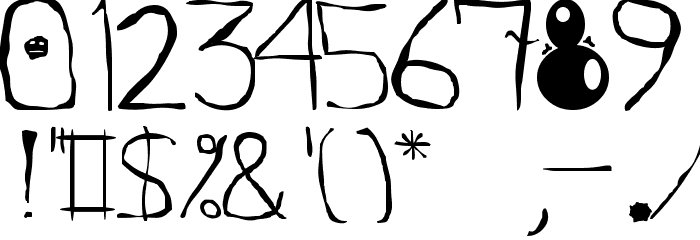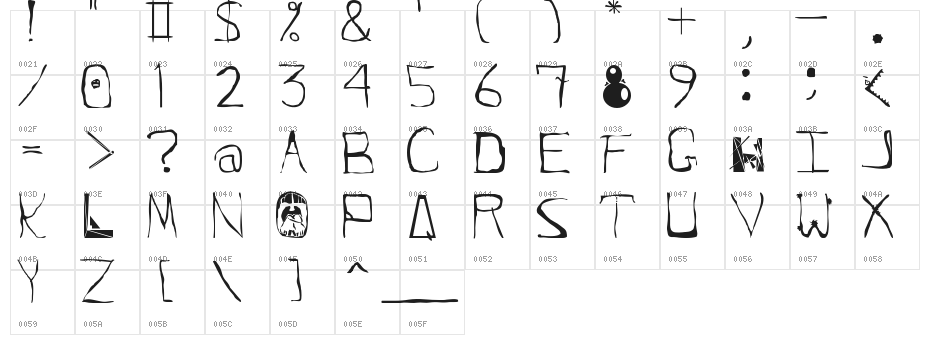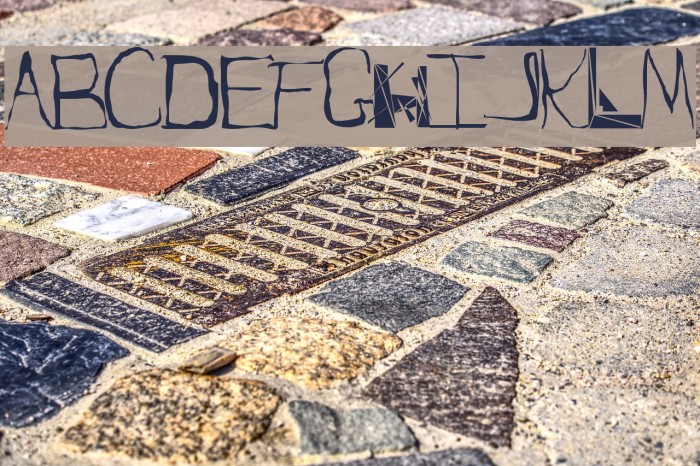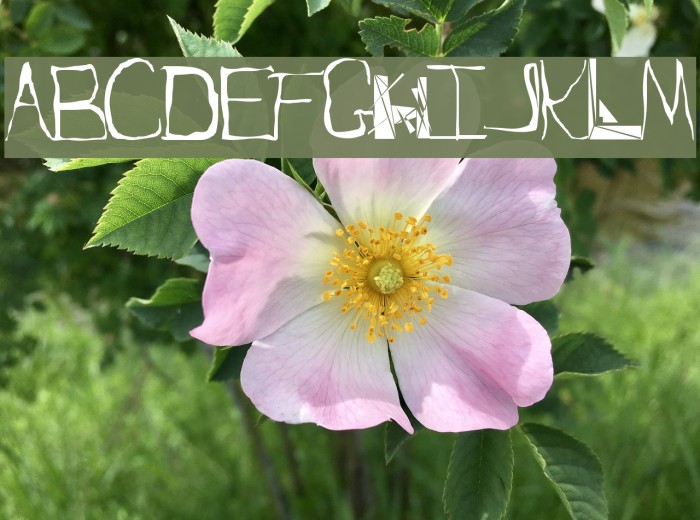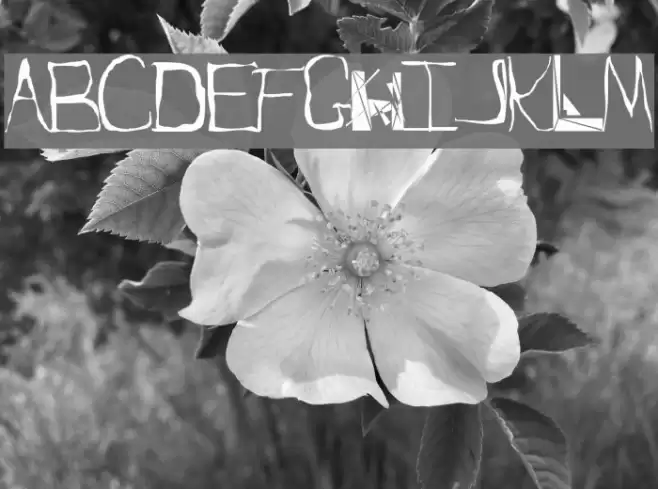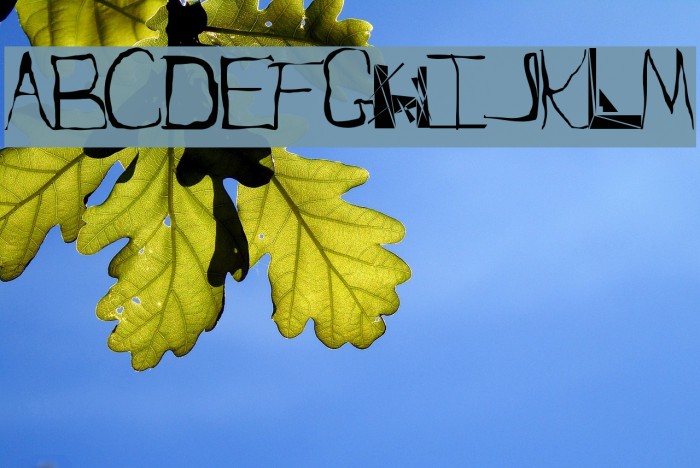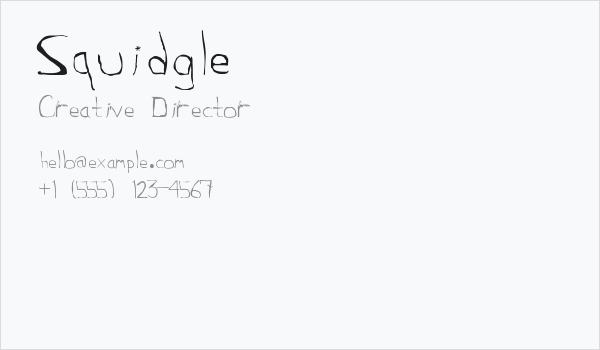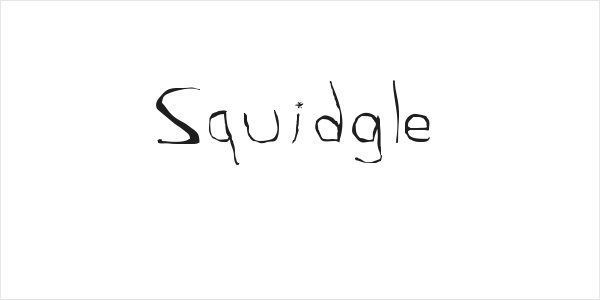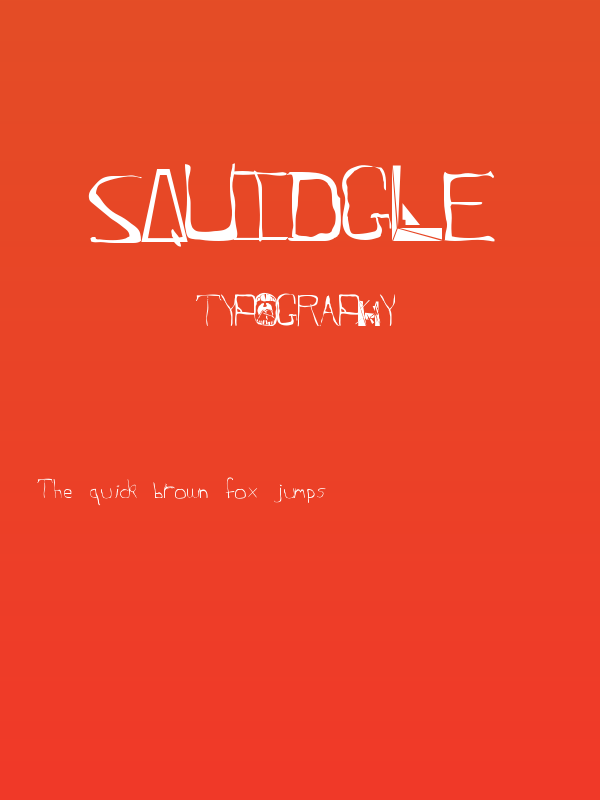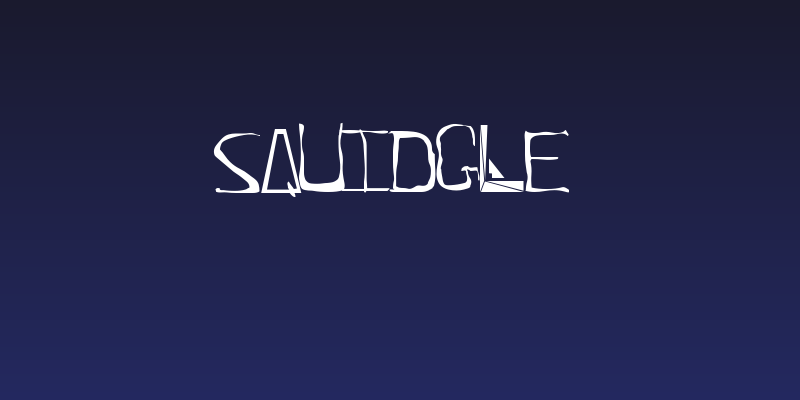
Squidgle Font
Squidgle Description
This font exhibits a playful and whimsical design, characterized by its irregular and quirky letterforms. Each character is uniquely crafted with unexpected elements, such as stars, teeth, and abstract shapes, giving it a distinct personality. The uppercase letters are bold and dynamic, while the lowercase letters maintain a more fluid and organic appearance. Numbers and special characters continue the theme with creative embellishments, adding to the font's overall charm. The font's artistic style makes it suitable for creative projects that require a touch of humor and individuality.
| Overall Style | Playful, Artistic |
| Use Case | Logos, Posters, Creative projects |
| Proposed Projects | Ideal for children's books, playful branding, creative posters, and artistic invitations. |